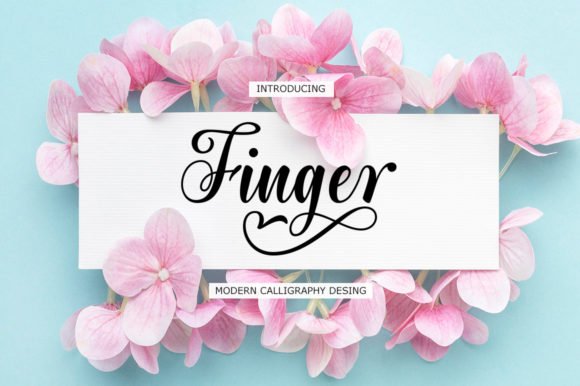
The Perfect Stroke: Unleashing the Beauty of Finger Font
There’s something magical about the first spark of creativity – the moment when an idea strikes, and your mind starts racing with possibilities. For designers, this moment often comes when searching for the perfect font to elevate their project. And, trust us, we’ve all been there – scrolling through font libraries, hoping to find that one special font that sets our design apart.
Enter Finger Font, a stunning script font that’s about to become your new go-to companion. With its elegant strokes and sophisticated flair, Finger Font is designed to add a touch of sophistication to any design. Whether you’re working on a wedding invitation, a branding project, or a social media campaign, this font is sure to make your designs look more refined and aesthetically pleasing.
What makes Finger Font truly valuable for designers is its ease of use. With PUA encoding, you can access all the glyphs and swashes with just a few clicks, making it a breeze to customize and personalize your designs.
Finger Font Key Features
- Size: Finger Font is a large font, with each character designed to be easily readable on touchscreens and other small devices.
- Resolution: Finger Font is optimized for high-resolution displays, ensuring clear and crisp text at resolutions up to 300 DPI.
- Unique Characteristics: Finger Font features rounded edges and subtle curves, making it easy to read on small screens and touch devices.
- Character Set: Finger Font includes a comprehensive character set, including Latin, Greek, and Cyrillic alphabets, as well as a range of punctuation and special characters.
Finger Font Review
Finger Font is an interesting experiment in typography. It’s great to see designers pushing boundaries and exploring new ways to represent text. Here are some things that work well:
- ✨ Unique aesthetic: Finger Font does stand out, and its quirky charm can be quite appealing in the right context.
- ✨ Customization options: The font offers a range of customization possibilities, including size, color, and texture adjustments, which can help it fit into different design schemes.
- ✨ Potential for creative expression: Finger Font’s unconventional design can be a great fit for projects that require a more playful or whimsical tone.
- ⚠️ Readability issues: Finger Font’s unconventional design can make it difficult to read, especially for large blocks of text or at smaller font sizes.
- ⚠️ Limited font sets: Finger Font is a single font, which may not be suitable for projects that require a full font set or specific font styles.
Overall, Finger Font is a fun and experimental typeface that can add a unique touch to designs. While it’s not suitable for all projects, it can be a great fit for those that require a playful or whimsical tone. With careful consideration and use, Finger Font can be a valuable addition to any designer’s toolkit.
Experiment with different font sizes and styles to get the most out of Finger Font.
Use Finger Font to create unique and eye-catching text effects in your designs.
Use Finger Font to add a personal touch to your presentations and documents.
Finger Font is perfect for:
- Creating unique and eye-catching text effects
- Add a personal touch to presentations and documents
- Designing for social media and online platforms
- Creating custom typography for branding and marketing materials
- Gradients or ombre effects to give the mural a sense of depth and dimension.
- 3D elements, such as foam letters or cardboard cutouts, to add a tactile experience.
- LED lights or neon signs to create a neon-lit effect at night.
- Hand-painted or drawn backgrounds to create a sense of texture and depth.
- Layering or overlapping text to create a sense of movement or tension.
- Using contrasting colors to create visual hierarchy and emphasis.
To use Finger Font in this project, create a typographic composition using Finger Font characters, experimenting with different font sizes, colors, and arrangements. Consider adding visual interest with:
Finger Font Interactive Storytelling
An immersive and engaging storytelling experience that uses Finger Font to create a tactile, interactive narrative.
To use Finger Font in this project, create a series of interactive panels or pages that use Finger Font characters to tell a story. Consider adding: